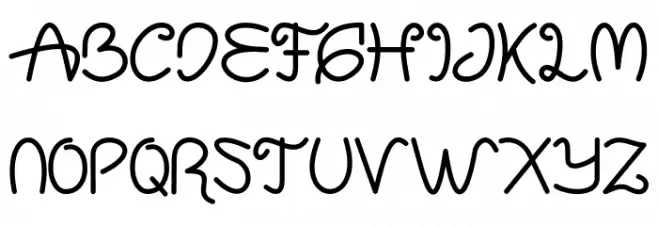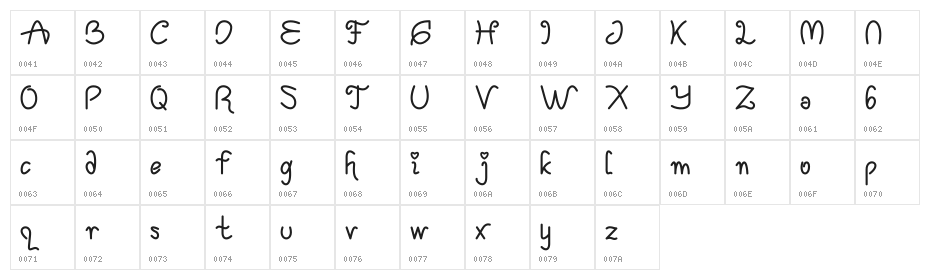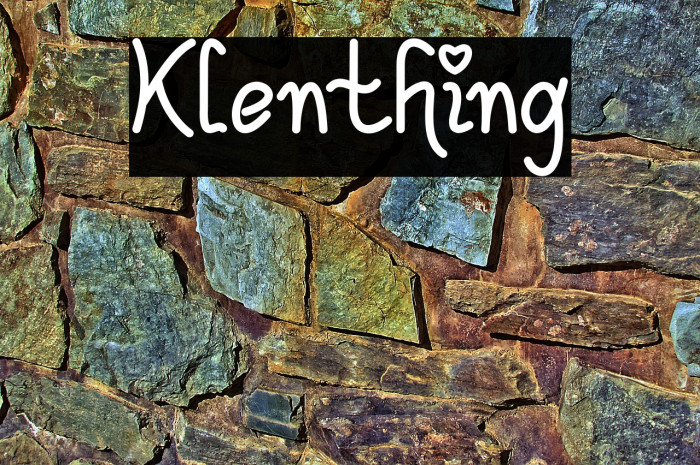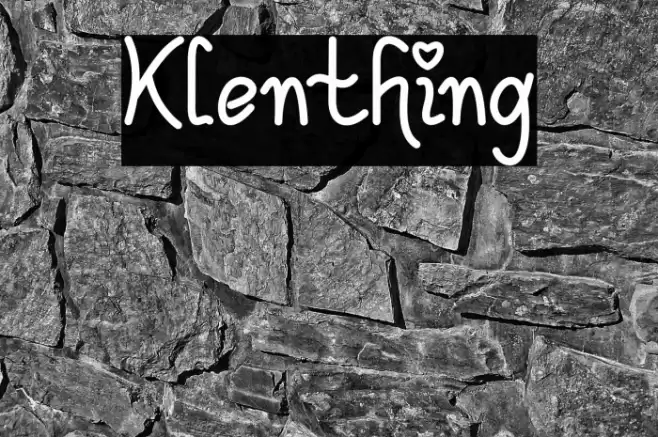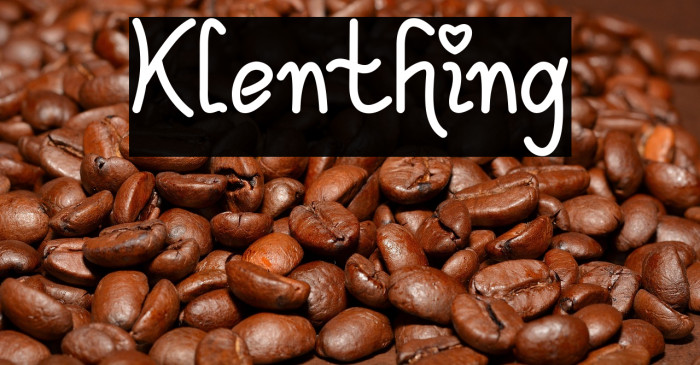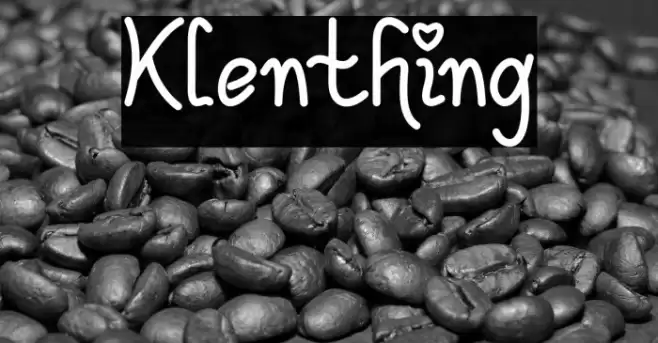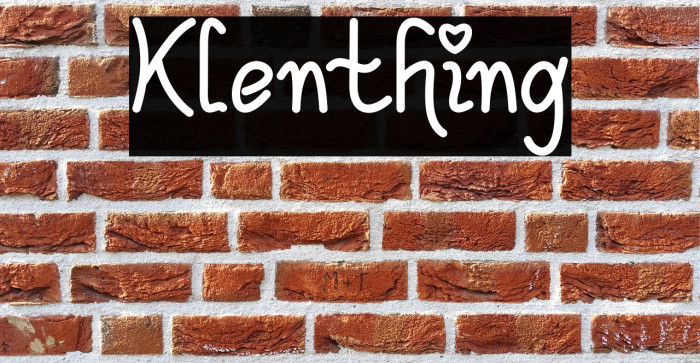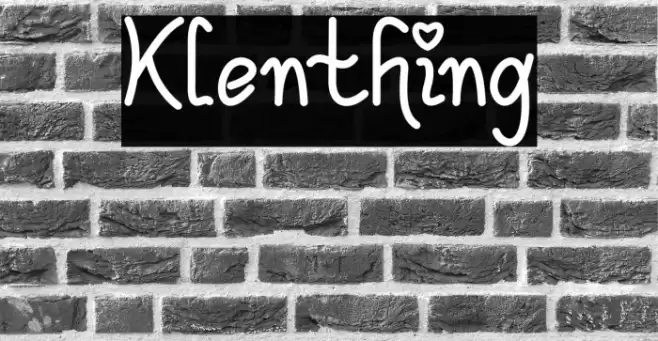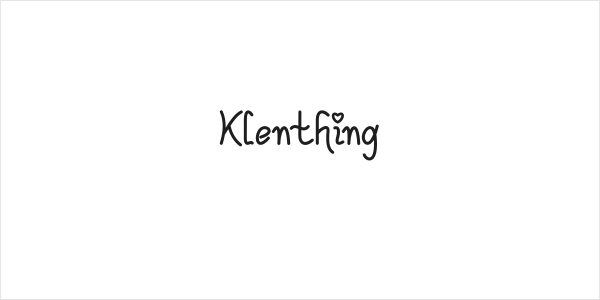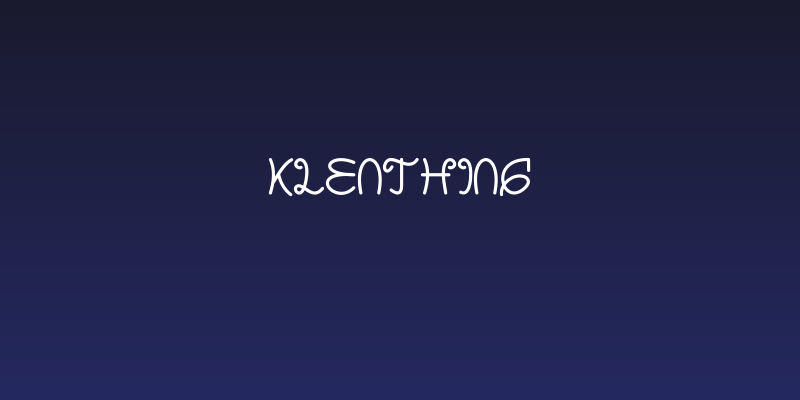
Klenthing Font
Klenthing Description
This playful and whimsical font features a unique handwritten style with a touch of charm. The letters are characterized by their rounded edges and flowing curves, creating a friendly and approachable appearance. Notably, the lowercase 'i' and 'j' include heart-shaped dots, adding a delightful and quirky element. The font maintains a consistent stroke width, contributing to its clean and cohesive look. Its informal and casual nature makes it suitable for projects that aim to convey warmth and creativity. The overall design is both modern and decorative, making it versatile for various creative applications.
| Overall Style | Playful, Decorative |
| Proposed Projects | Ideal for greeting cards, children's books, playful branding, and social media graphics. |